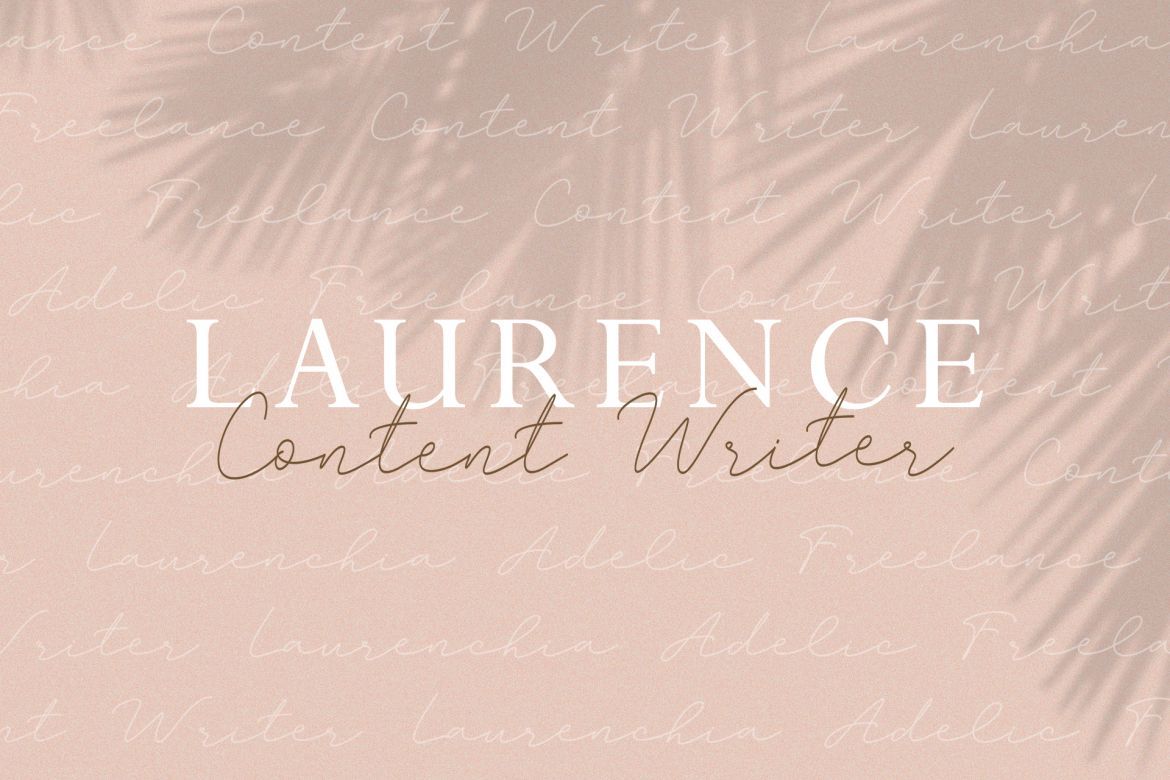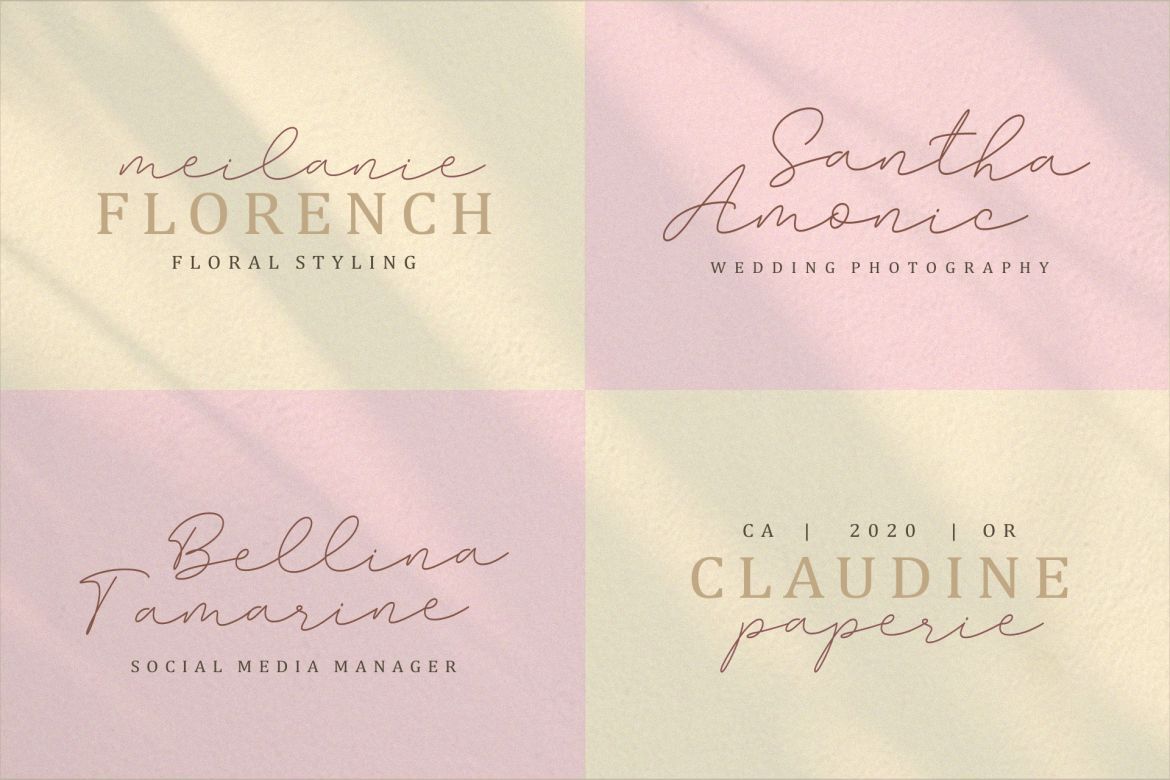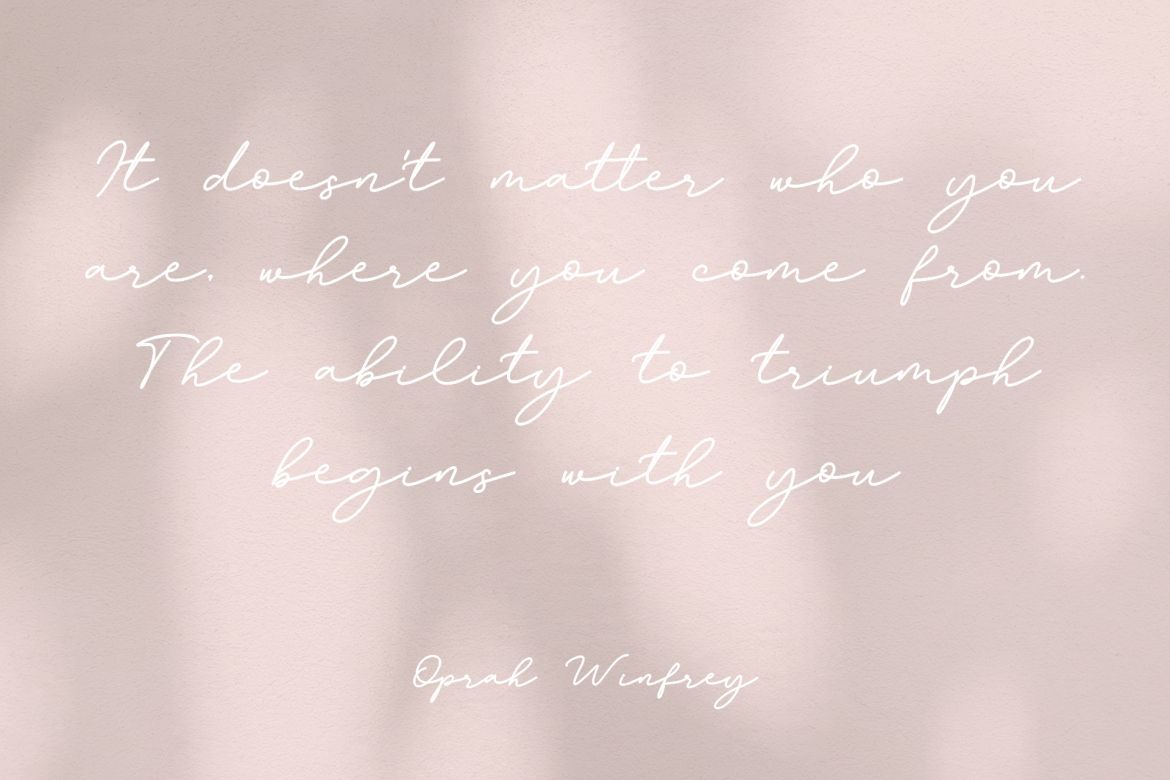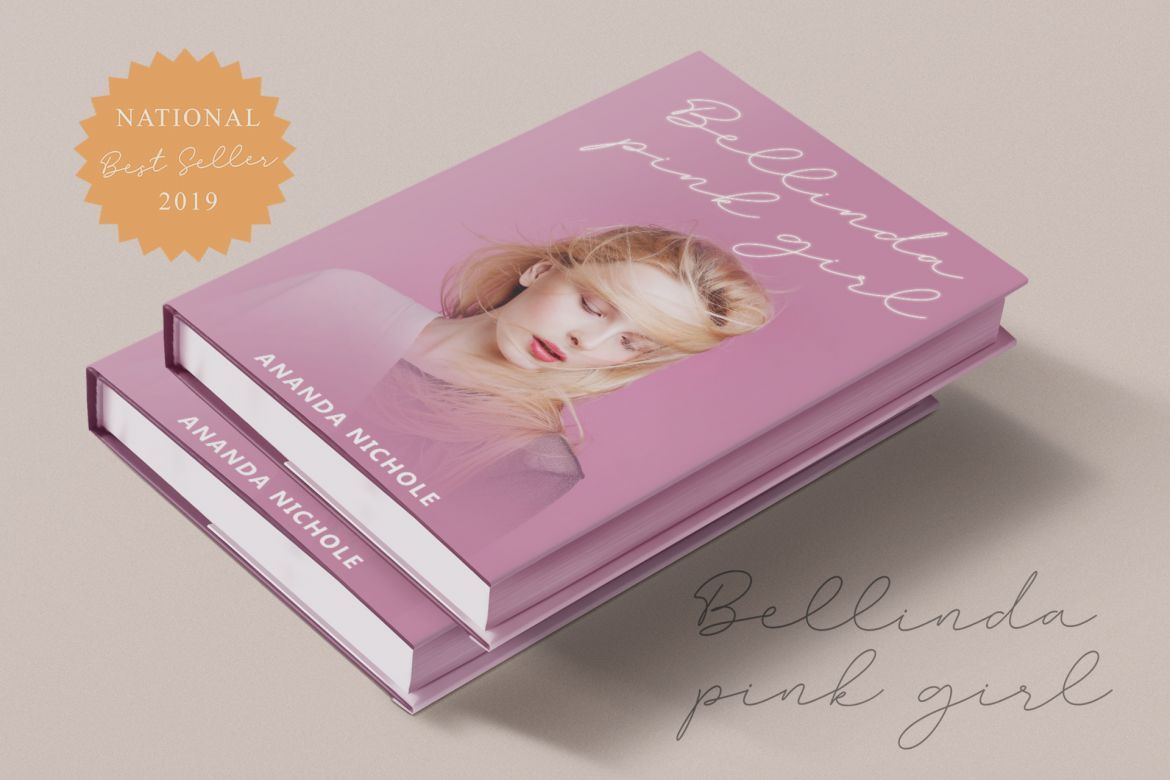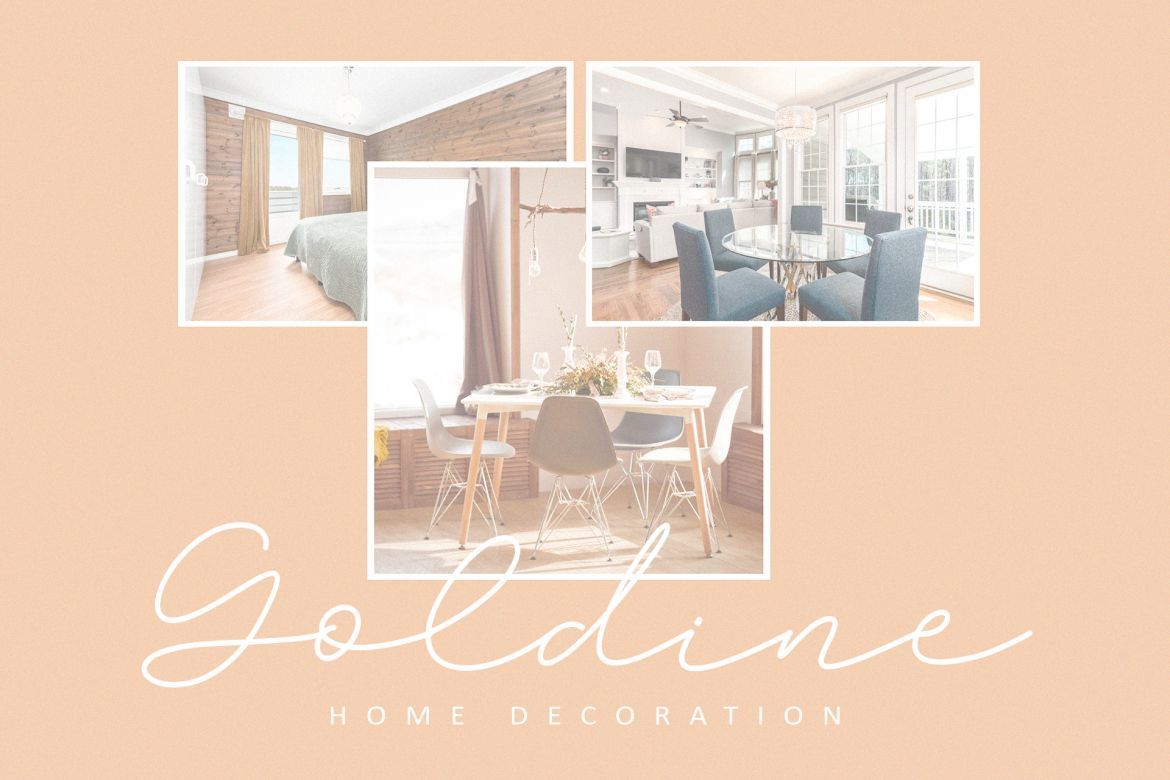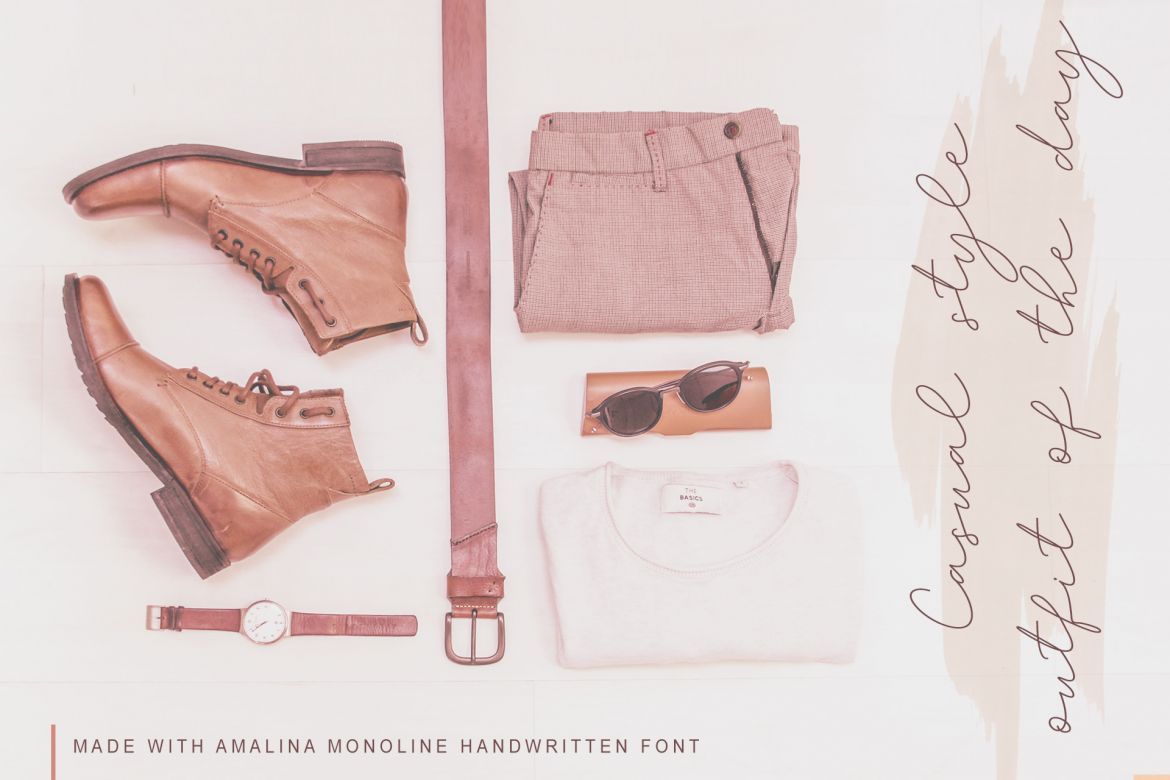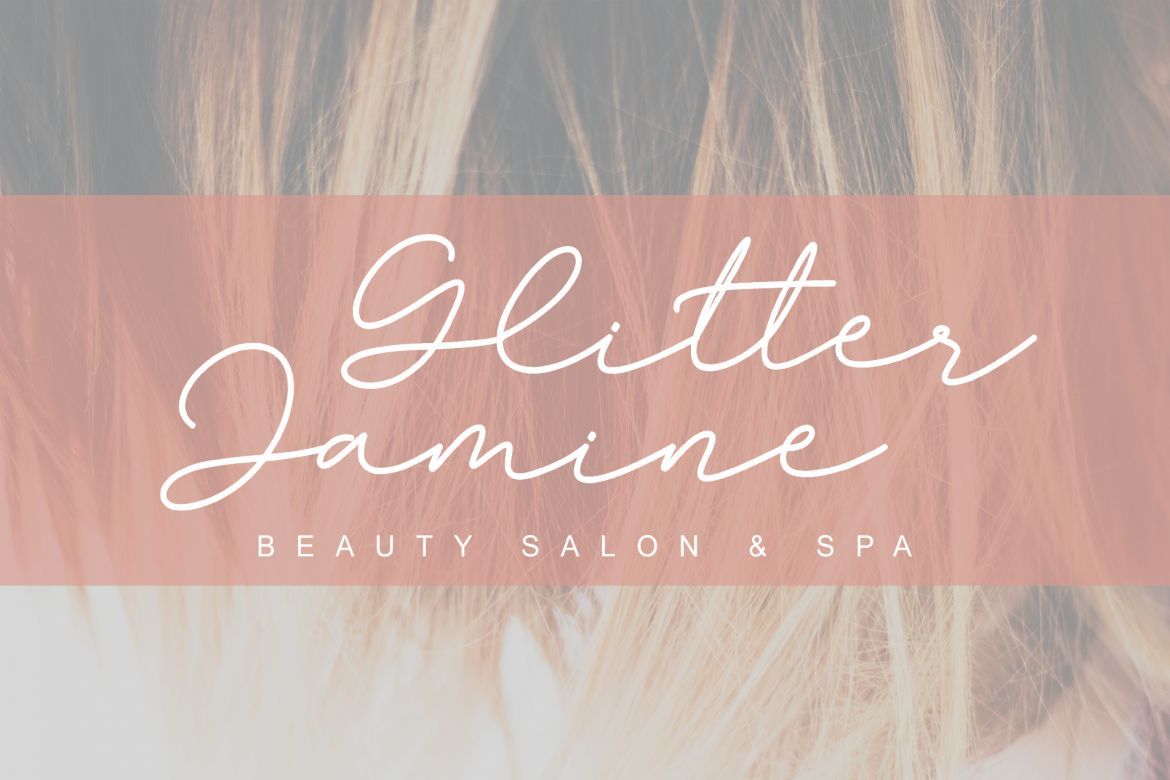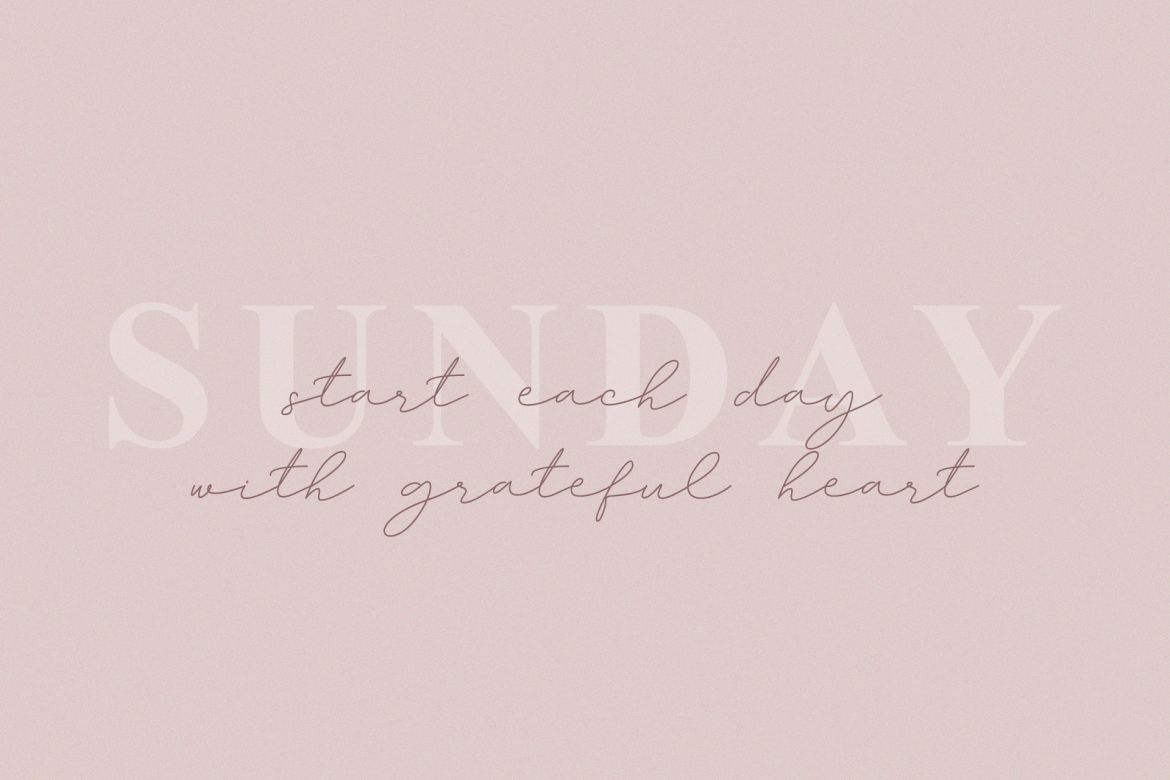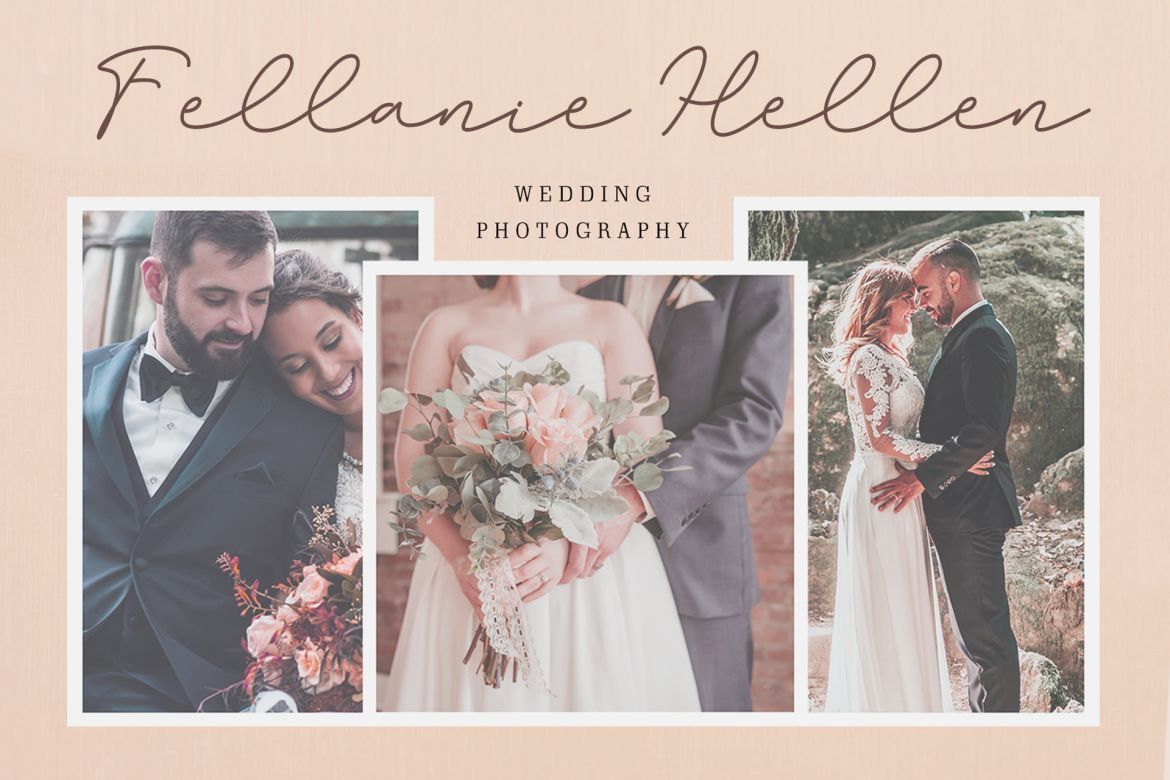
Amalina Monoline Font
Amalina Script style - a new modern & fresh script with a handwritten and script style make this font looks elegant, natural, stylish and perfect for any awesome projects that need handwriting taste.
Amalina would perfect for photography, watermark, social media posts, advertisements, logos & branding, invitation, product designs, label, stationery, wedding designs, product packaging, special events or anything that need handwriting taste.
• pure handwritten style